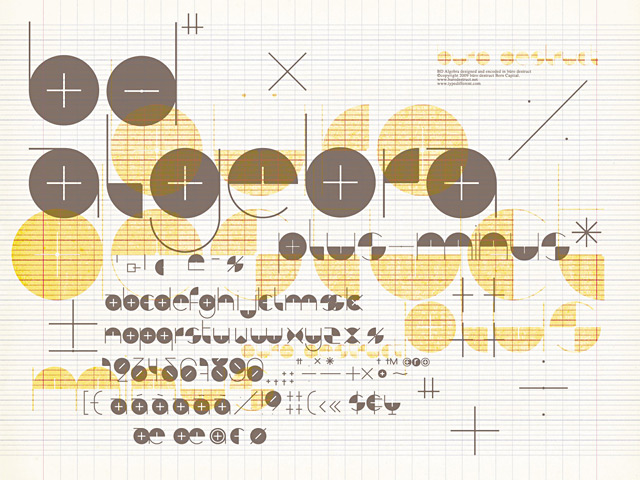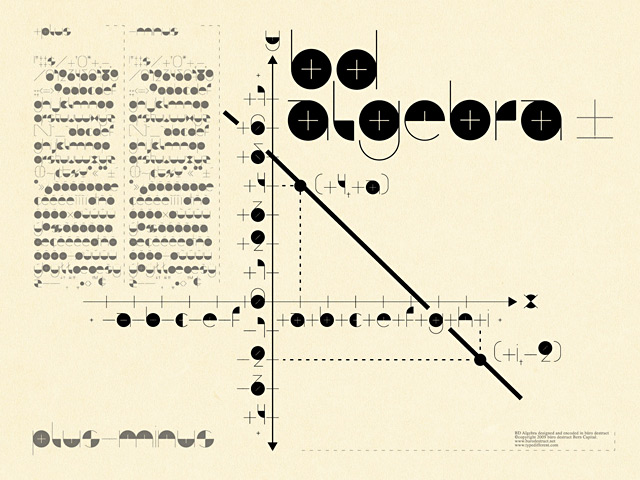
HomePersonal Use FreeBD Algebra Personal Use Free BD Algebra FacebookTwitterPinterestWhatsApp 1 of 2 About BD Algebra Font BD Algebra Plus and Minus are two experimental, geometric free fonts great for improving your math skills. DOWNLOAD NOW People also explored Daisuke Font Ballegand Font Smith Family Font A La Carte Font Dwarf Signature Font Alchemish Script Font Humerus Betyio Font Merry Christmas Font 161 0 TagsBD Algebra Font Previous articleBD SpinnerNext articleBD RatterBit LEAVE A REPLY Cancel reply Comment: Please enter your comment! Name:* Please enter your name here Email:* You have entered an incorrect email address! Please enter your email address here Website: Save my name, email, and website in this browser for the next time I comment. Personal Use Free Hagia Signal Personal Use Free Read more about this font Brittish State Personal Use Free Read more about this font Eits Personal Use Free Read more about this font Sunbright Font Personal Use Free Read more about this font BLOG Elegant Wedding Invitation Fonts – Handwritten & Script Fonts Elegant Wedding Invitation Fonts Your wedding day is one of the most important moments of your life, and every detail matters—including your invitation design. Our... To increase your work productivity, choose the most readable fonts. Exploring Font Trends Transform Your Website: Elevate Your Typography with 7 Best Web Font Generators